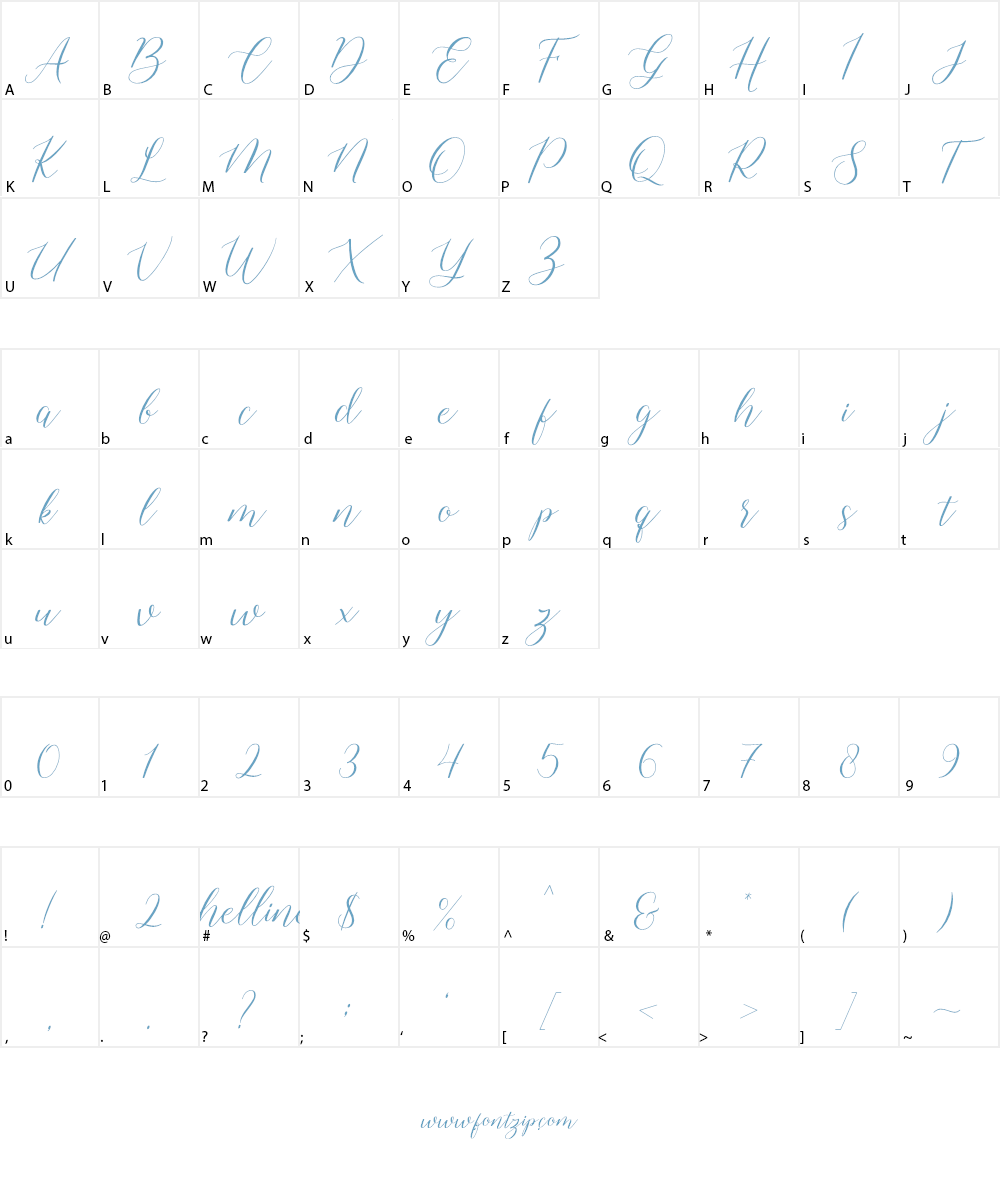
Welcome to the new Romantic script font, Shelline. This is a type of modern script with a delicious flow, snap-perfect characters and start & end swash. With its alternative character, you will immediately get an original handmade look. With the added bonus of a beautiful flower watercolor with an original taro texture made with real watercolors, I took a careful approach to make it as easy as possible to use and I think the results are great! Become the perfect professional in a minute and start creating modern designs such as advertising, sales, logos, branding, posters, social media text overlays today!